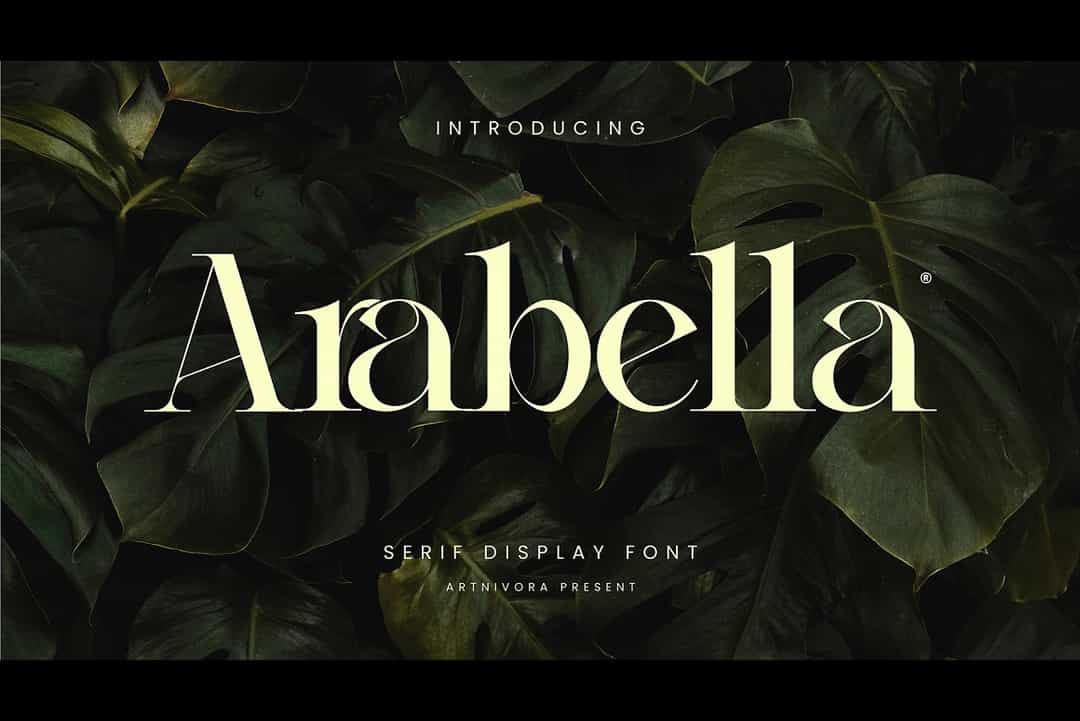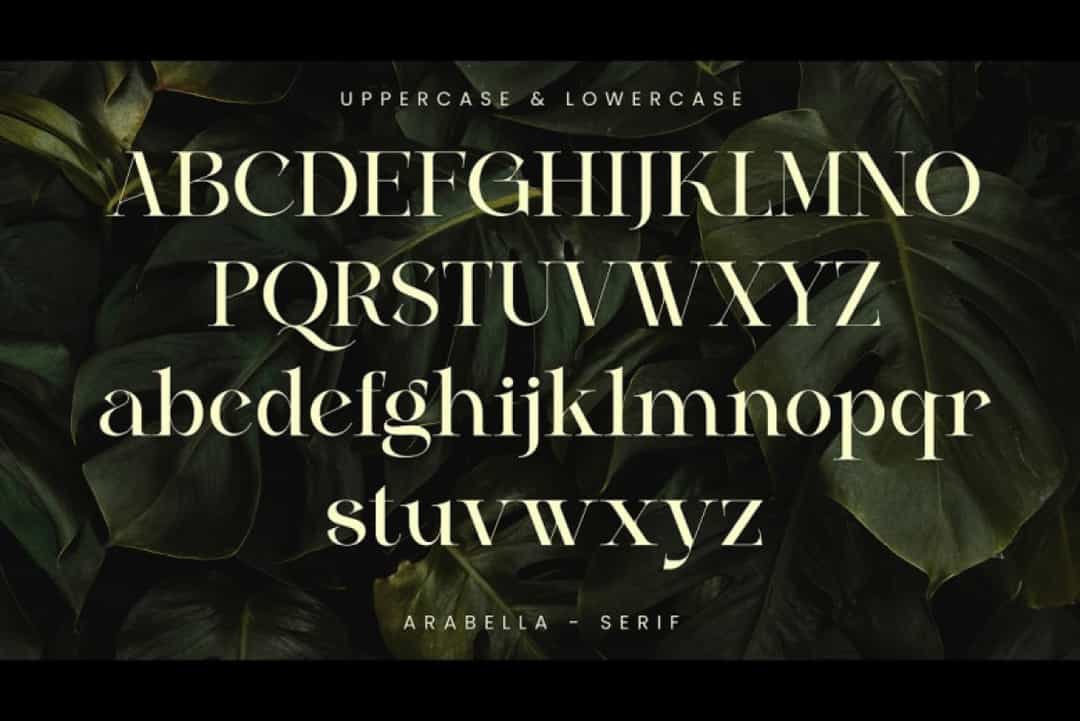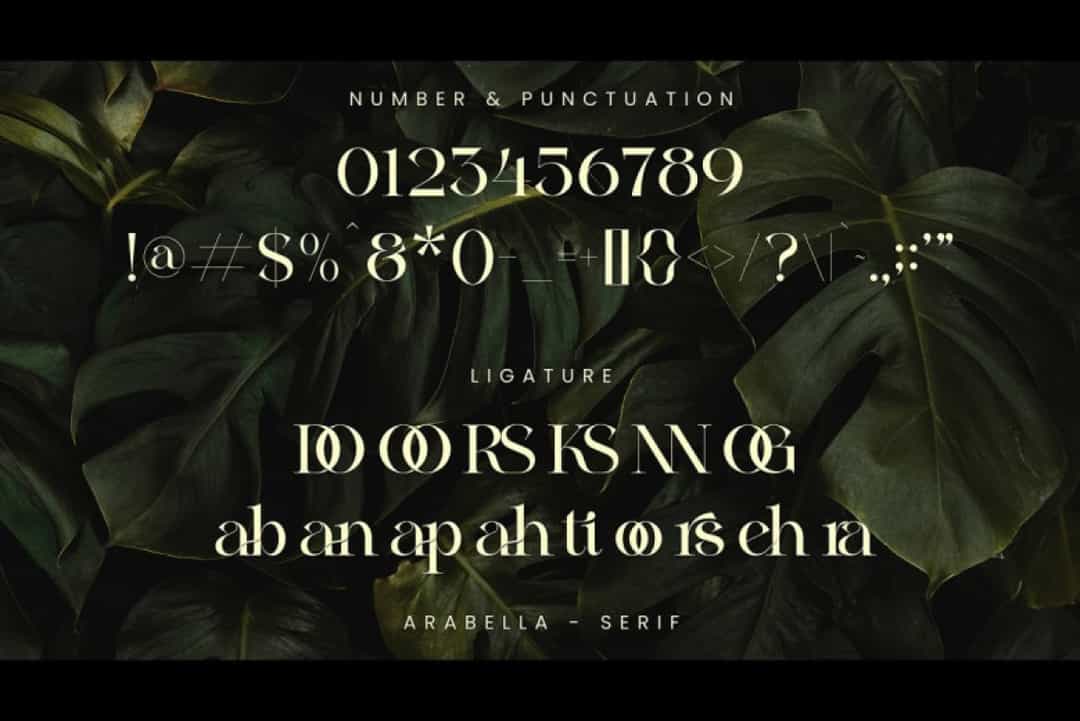
Arabella is an old-fashioned Serif display font with timeless beauty that brings timeless class to any design. With its sophisticated yet clean style, Arabella adds elegance and class to any text displayed, perfect for headings, titles, or any text that demands attention.